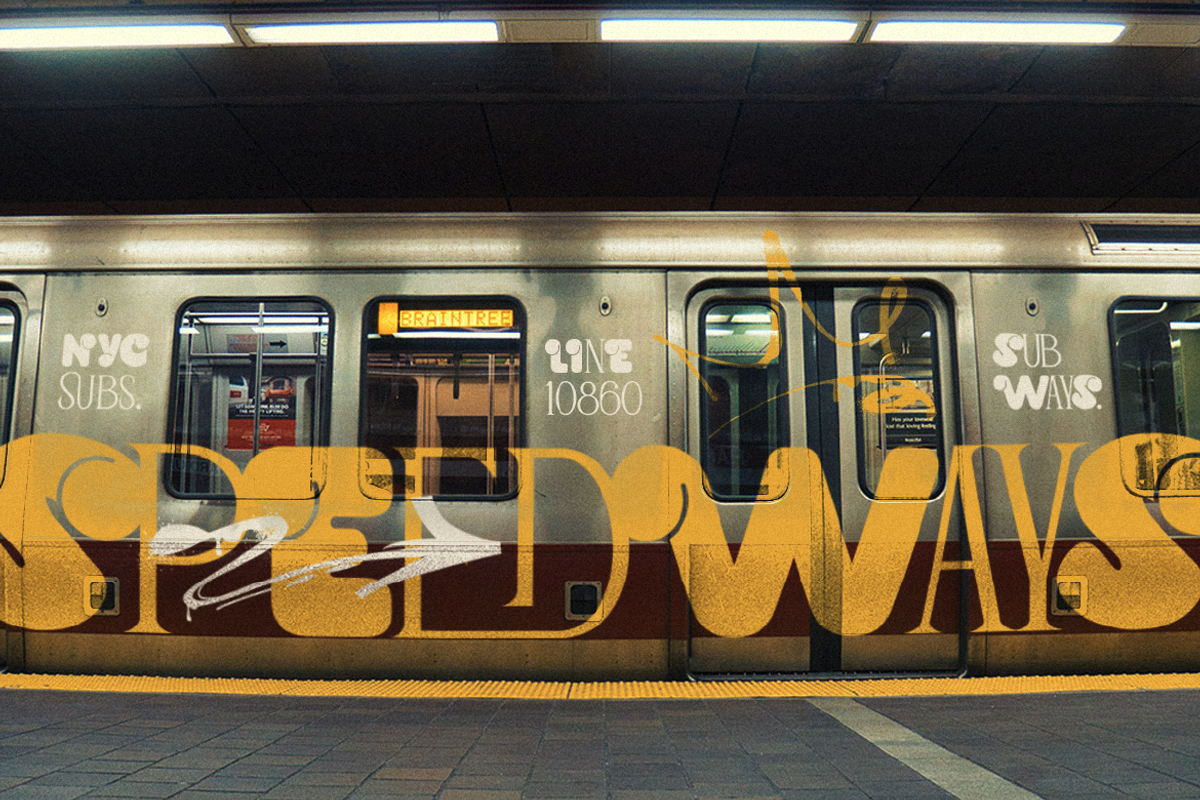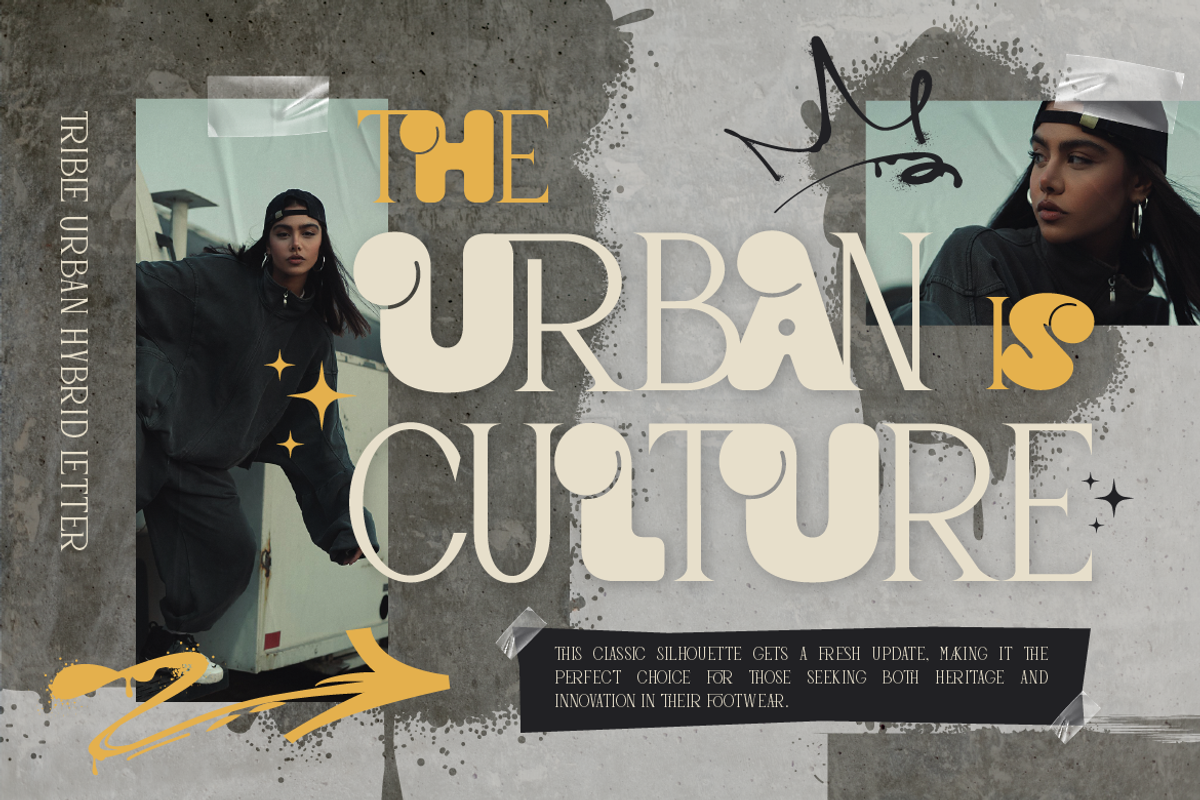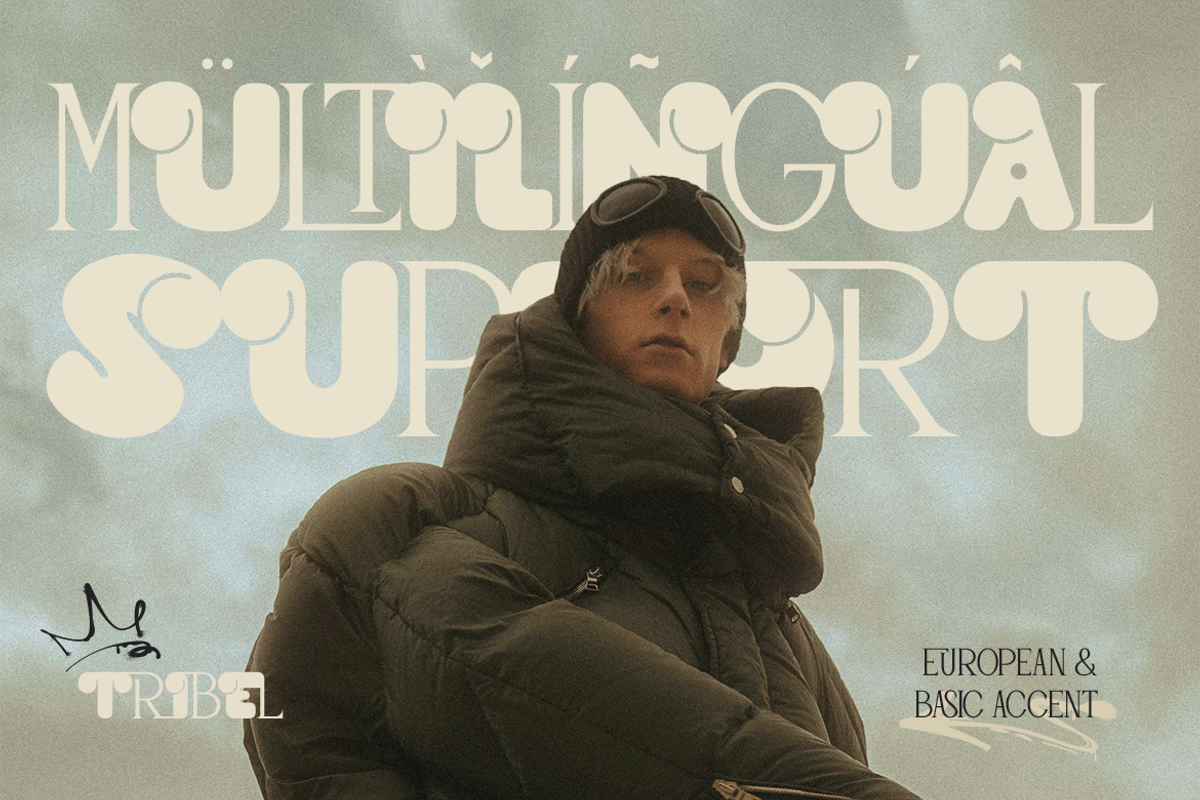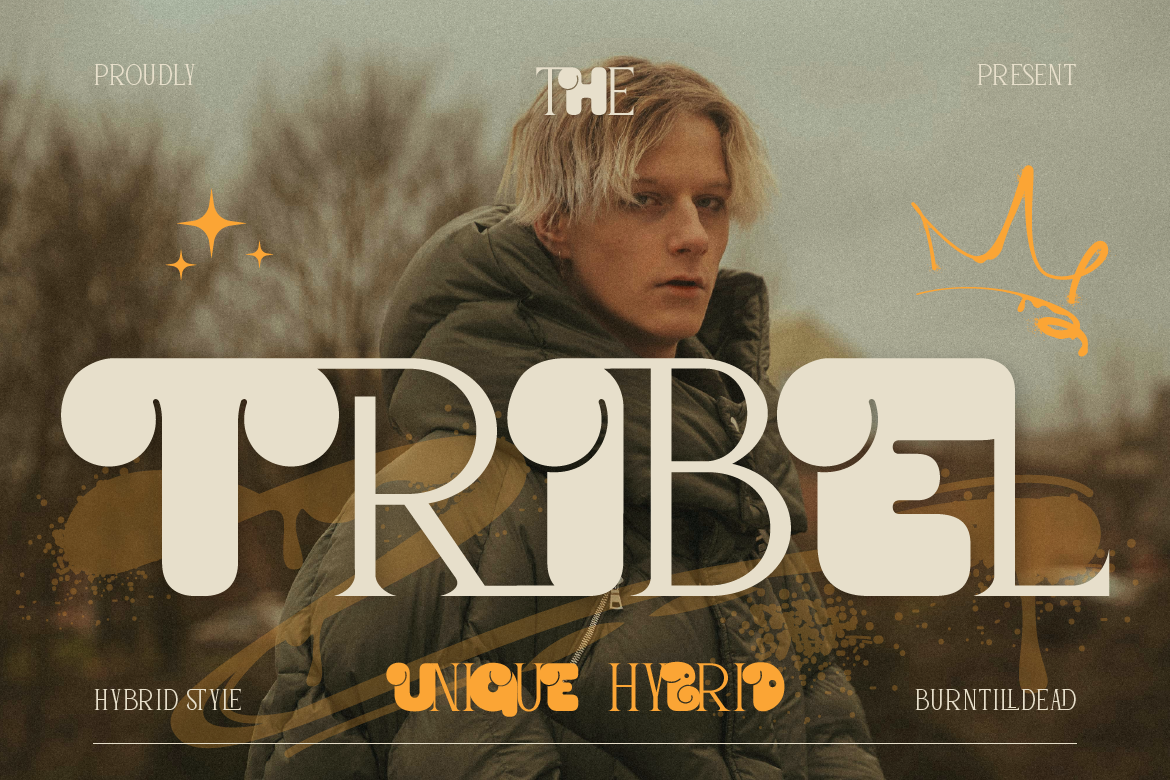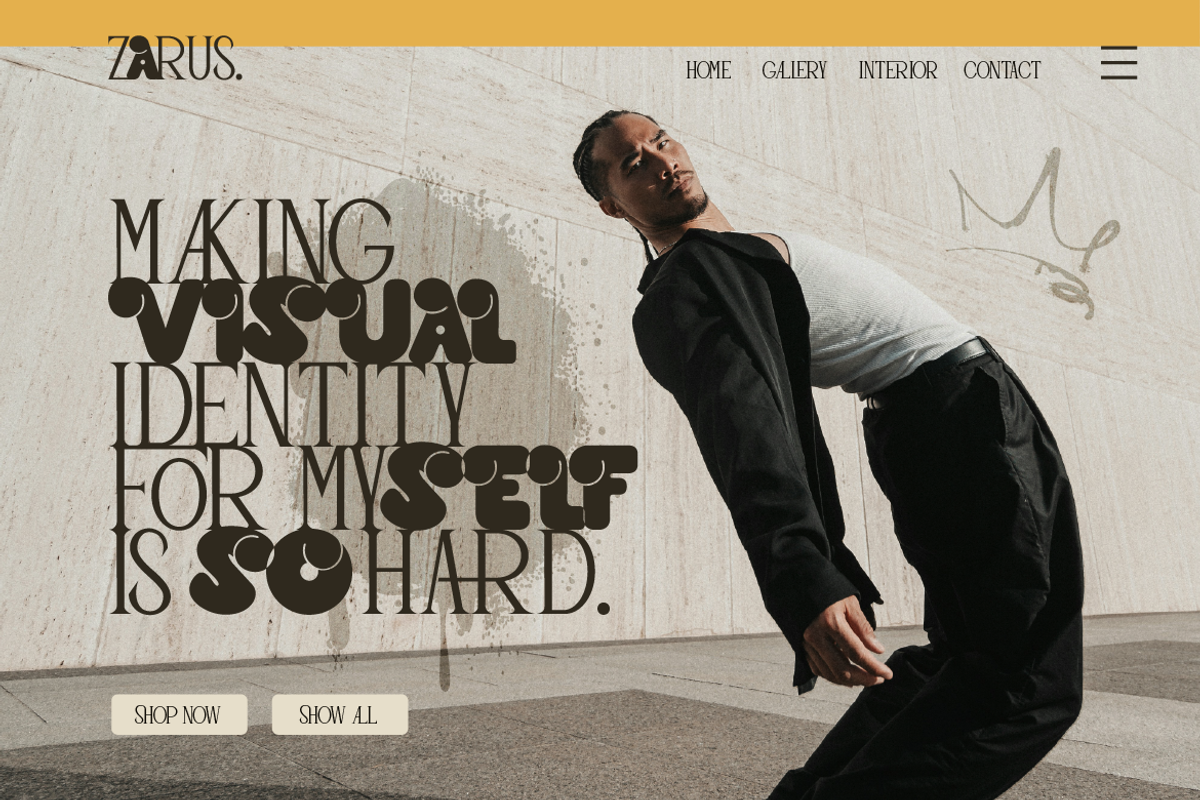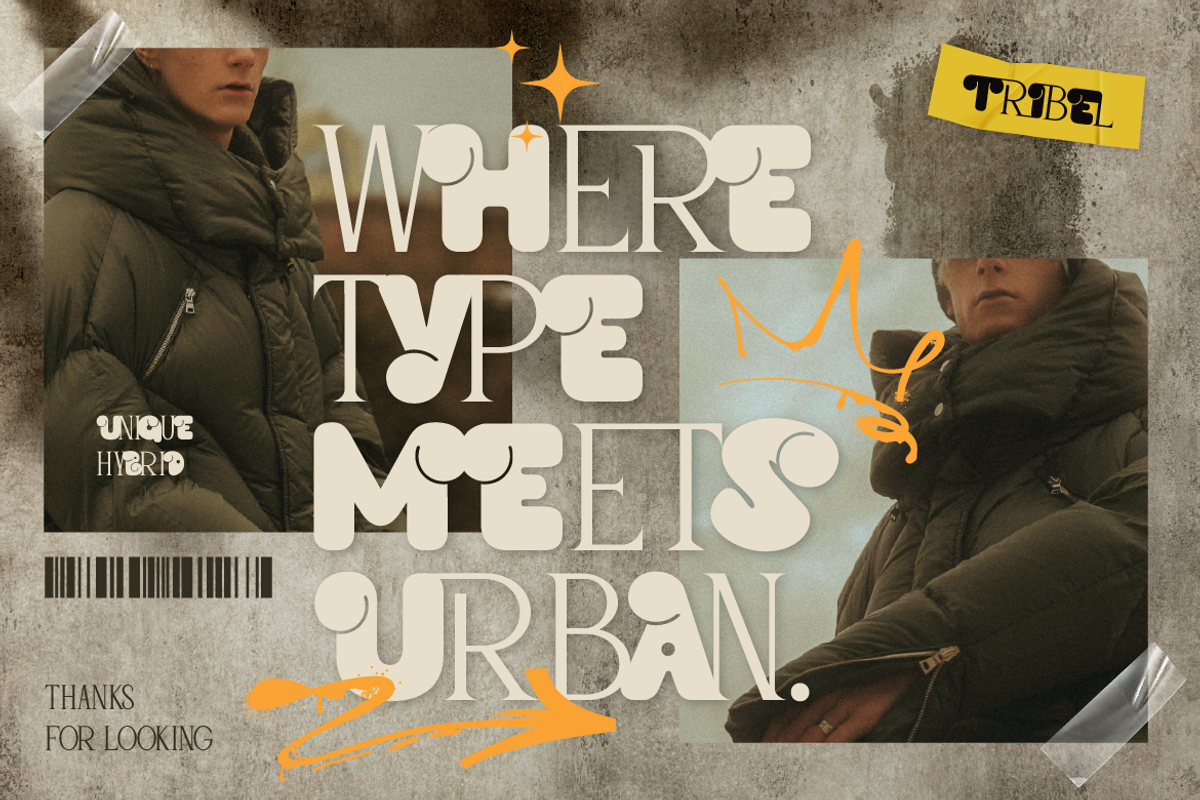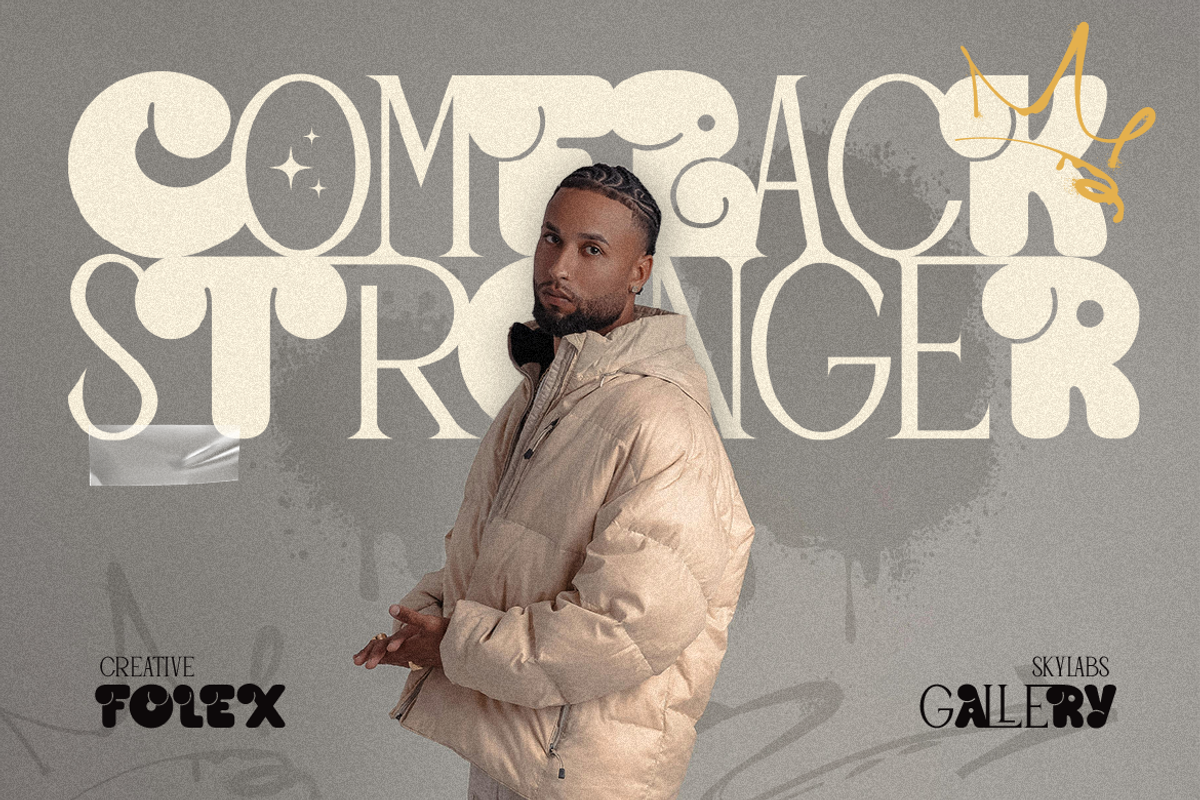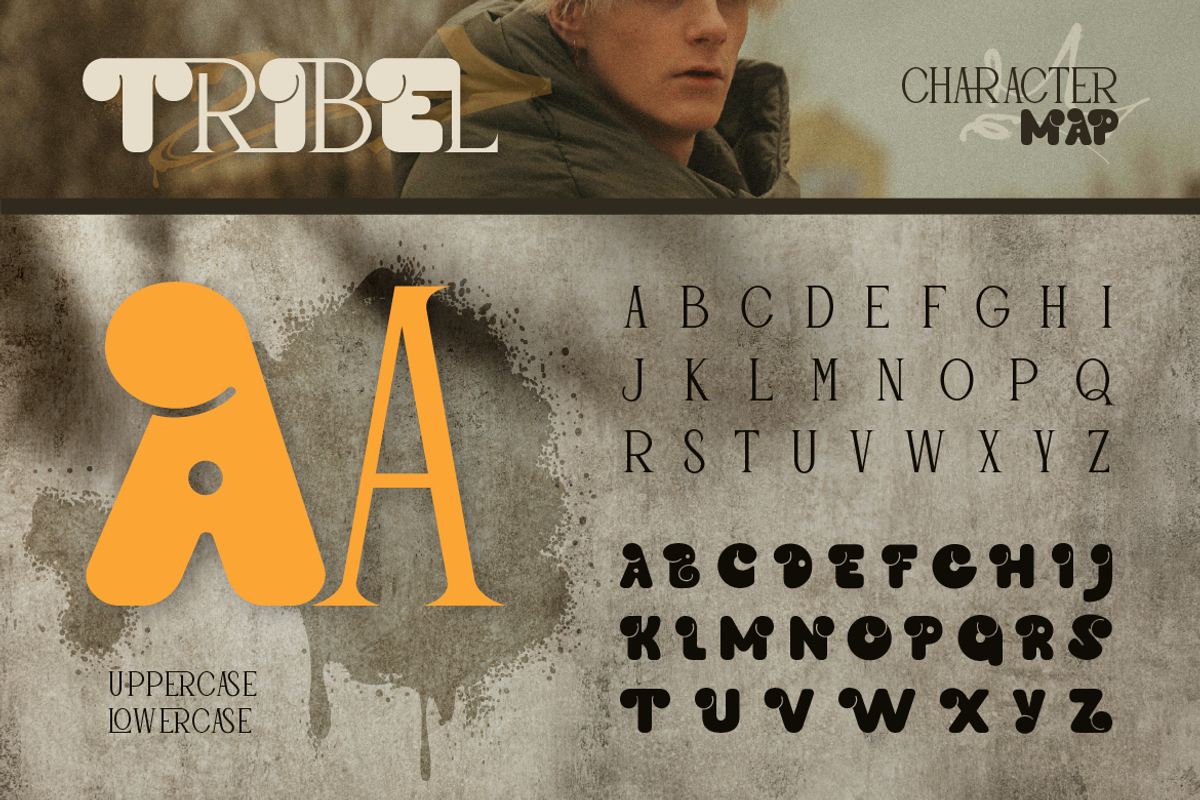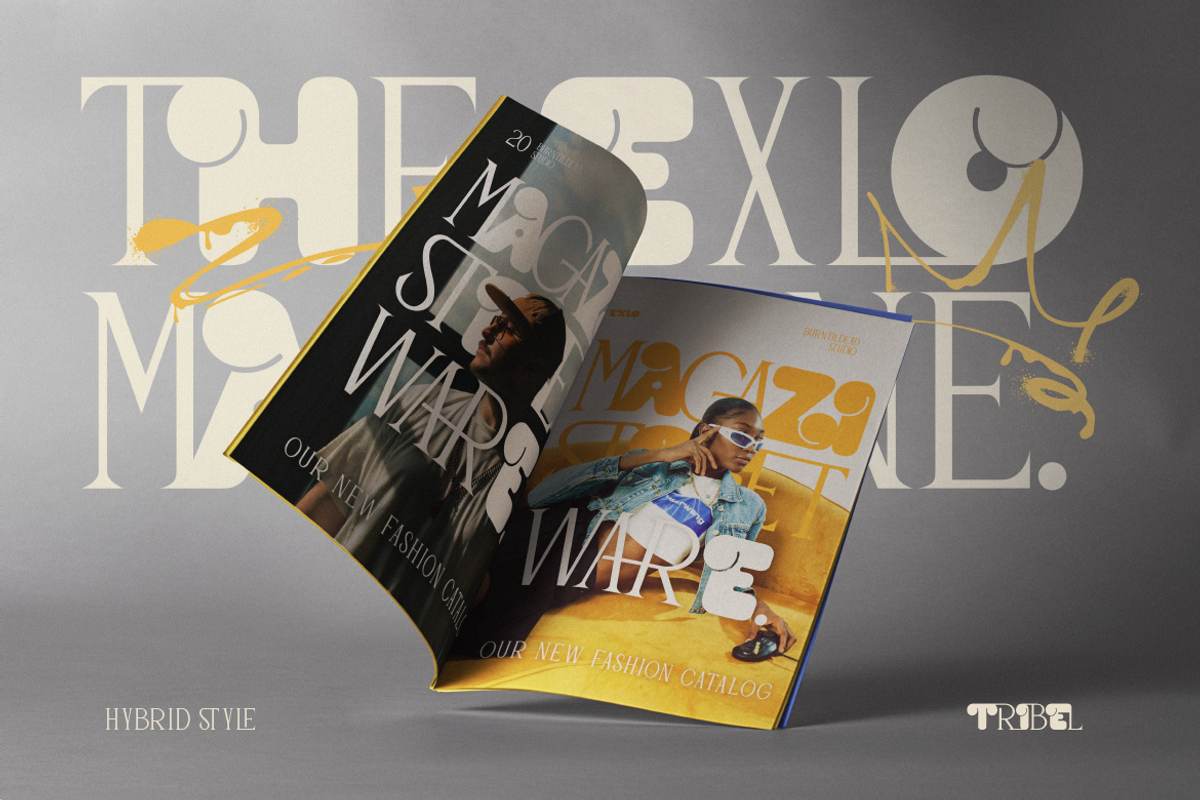
Tribel - Unique Hybrid Typeface
Proudly present, Tribel, hybrid typeface of bubble and serif font. This unique combination brings together the playful, rounded forms of bubble with the structured, classic lines of serif typography. The result is a typeface that exudes both fun and sophistication, perfect for projects that aim to capture a modern, urban aesthetic. Whether you're designing for streetwear brands, creative posters, or contemporary logos, this hybrid typeface offers versatility and a fresh, dynamic look.